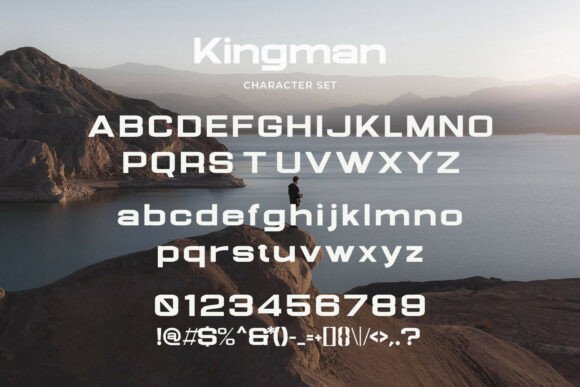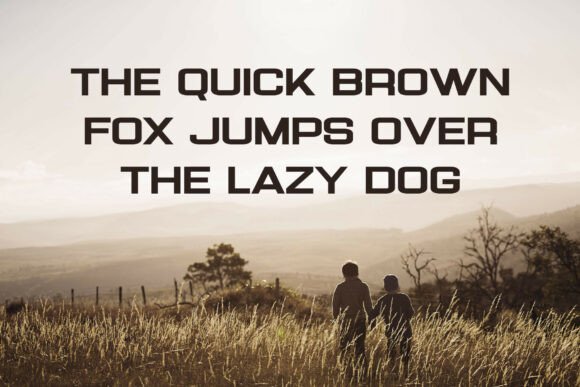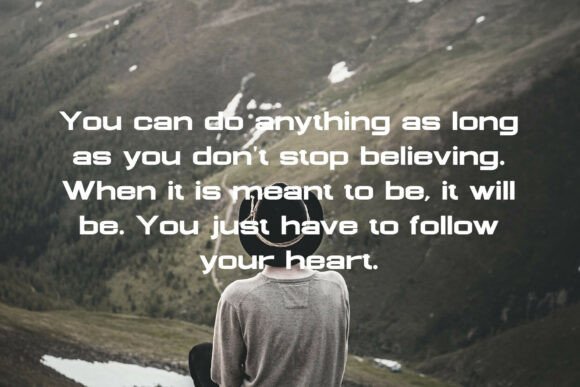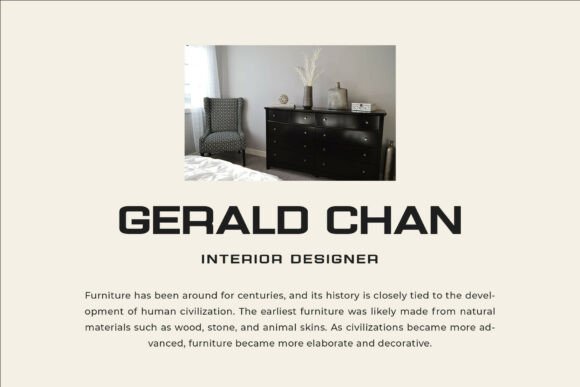
Introduction to Kingman Font
Have you ever stumbled upon a design that makes you pause and say, ‘Ah, this is perfect’? For designers, that moment is pure magic. It’s the culmination of hours of searching, experimenting, and refining until you find the perfect element that brings your creative project to life. For me, that moment came when I discovered the Kingman Font. Its unique blend of elegance and sophistication makes it a standout in the world of sans serif fonts.
Whether you’re working on a wedding invitation, a thank you card, or a logo, the Kingman Font is an excellent design resource that can elevate your work to the next level. With its high-quality lines and transparent background, it’s perfect for designers who crave a personalized style that sets their work apart from the rest.
Key Features of Kingman Font
- High-quality font suitable for various creative projects, including graphic design, web design, and digital art.
- Unique, modern design aesthetic that adds a touch of sophistication to any creative project.
Honest Review: Kingman Font
As a designer, I’m always on the lookout for reliable design resources that can elevate my creative project. The Kingman Font caught my eye, and I was excited to give it a try.
What works well about the Kingman Font is its clean and modern aesthetic. It’s perfect for headings and titles, and the font’s versatility makes it suitable for a wide range of creative projects. The high quality of the font is also a major plus – it’s crisp and clear, even when used at larger sizes.
The font’s transparent background is another plus, making it easy to use with any background image or color. This feature is especially useful for designers who want to create visually striking designs.
Some limitations of the Kingman Font include its limited character set. While it’s not a deal-breaker, it may not be suitable for designers who need to use a wide range of special characters or languages.
Overall, I’m impressed with the Kingman Font. Its high quality, clean design, and transparent background make it a valuable design resource. With a free download available, it’s definitely worth checking out for any designer looking to add some modern flair to their creative project.
- ✨ Clean and modern aesthetic
- ✨ Versatile and suitable for a wide range of creative projects
- ✨ High quality and crisp design
- ✨ Transparent background for easy use with background images or colors
- ⚠️ Limited character set
The Kingman Font is a versatile and modern design resource that offers a high-quality, free download option for creative projects. Its transparent background makes it perfect for overlaying text on images or backgrounds.
Tips for Getting the Most Out of Kingman Font
To get the most out of the Kingman Font, try using it in conjunction with other design elements, such as images and graphics. You can also experiment with different font sizes and styles to create a unique look.
The Kingman Font is ideal for a variety of creative projects, including logos, business cards, and social media graphics. Its high-quality and transparent background make it perfect for overlaying text on images or backgrounds.